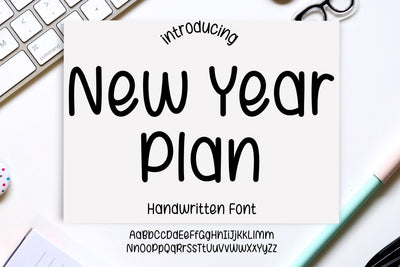
New Year Plan - Handwriting Font
New Year Plan is a clean and tidy handwritten font. You can use this font in various projects - blog posts, logos, branding, digital planner, digital notes, invitations, greeting cards, planners, digital journal, photo albums, study notes, school notes, college notes, decorations and much more. Its authentic look and feel will add a personal and realistic feel to your designs.
The font includes uppercase, lowercase, numbers, punctuations